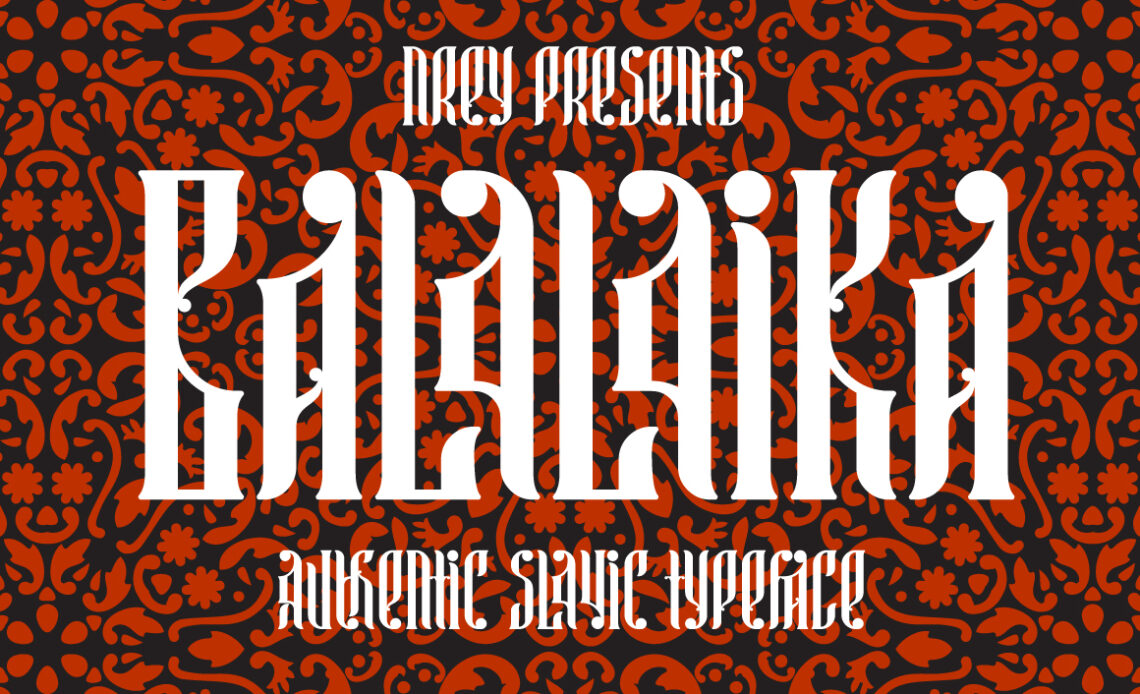
Journey Through the Enchanting Realm of Slavonic Design with Balalaika Font
Embrace the timeless beauty of Slavonic culture with Balalaika Font, a decorative display font that breathes life into your creative endeavors. Designed by the talented NREY, Balalaika captivates with its intricate ethnic typography, harmoniously blended with a contemporary flair. This font is an ode to the rich heritage of Slavonic art, promising to add a touch of classic elegance to your designs.
Immerse yourself in the captivating world of Balalaika, where each character dances with a unique charm. Its meticulously crafted glyphs exude an aura of authenticity, transporting you to the heart of Slavonic folklore. Whether you're crafting captivating logos, enchanting invitations, or captivating social media graphics, Balalaika Font stands as your trusted companion, ready to transform your words into captivating visual masterpieces.
Step into a world where tradition meets modernity, where the timeless allure of Slavonic art intertwines seamlessly with the dynamism of contemporary design. Unleash the boundless potential of Balalaika Font, tailoring it to your creative vision. Bask in the versatility of this font, effortlessly adapting to normal-sized text and large headlines alike. Its unwavering clarity ensures that your message resonates with your audience, leaving an indelible mark on their minds.
With Balalaika Font, you'll discover a treasure trove of creative possibilities. Its captivating Slavonic style captivates the senses, inviting viewers into a world of enchantment and wonder. Its modern twist ensures that your designs remain relevant and impactful in the digital age. Whether you're a seasoned designer or just starting your creative journey, Balalaika Font is your gateway to a world of boundless inspiration.
Unlock the gateway to creativity with Balalaika Font. Let your imagination soar as you craft captivating designs that dance with the spirit of Slavonic culture. Its versatility knows no bounds, accommodating a vast array of creative endeavors. Embrace the magic of Balalaika, and watch as your designs transform into captivating works of art, leaving an unforgettable impression on your audience.